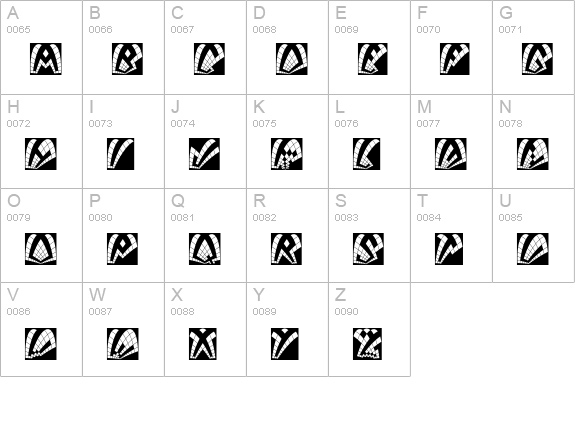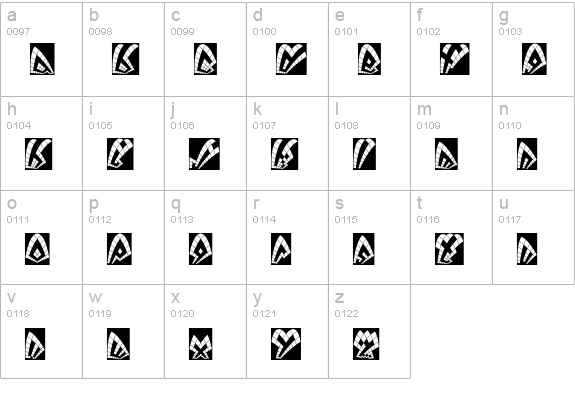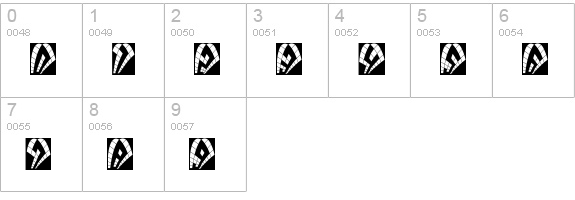
DackShatteredNegative Font Details
DackShatteredNegative font is a captivating typeface that exudes a sense of mystery and allure. With its shattered and distorted letterforms, this font is perfect for adding a touch of edginess and a unique visual element to your designs. The DackShatteredNegative font is characterized by its broken and fragmented appearance, which gives it a distinctive and unconventional look. Each letter seems to have been shattered into pieces, creating an intriguing visual effect that grabs attention and sparks curiosity. What sets DackShatteredNegative font apart is not only its striking design but also its versatility. This font can be used for a wide range of creative projects, such as branding, logo design, posters, book covers, album art, and more. Its unconventional style makes it particularly suitable for projects that aim to break away from the norm and stand out from the crowd. The best part is that the DackShatteredNegative font is free! Yes, you heard it right. This extraordinary font is freely available to download at FontsMarket.com. So, you can unleash your creativity without any financial constraints. Whether you're a professional designer or a hobbyist, this free font is a valuable addition to your typographic arsenal. Don't miss the opportunity to download the DackShatteredNegative font and elevate your designs to new heights. Its captivating and unique style will add a touch of intrigue and sophistication to any project. Get your hands on this remarkable font today and let your creativity soar. Remember, it's free, and you can find it exclusively at FontsMarket.com.